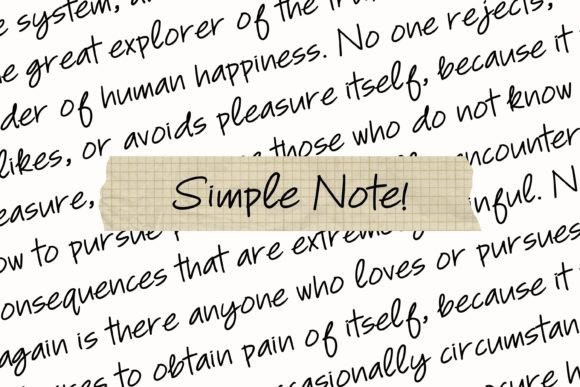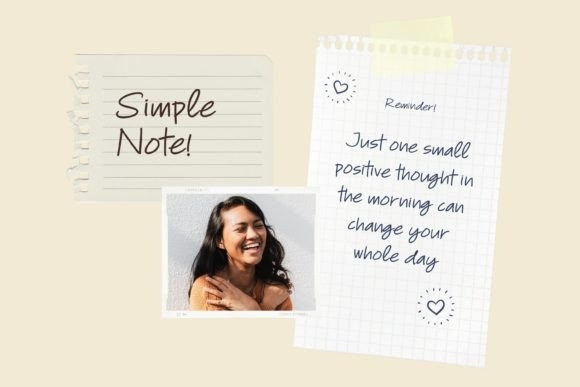
Simple Note Font
Simple Note Font is a casual handwriting font with natural stroke. This font will be perfect for notes, product descriptions, headlines, product paragraphs, logos, branding, and many more.